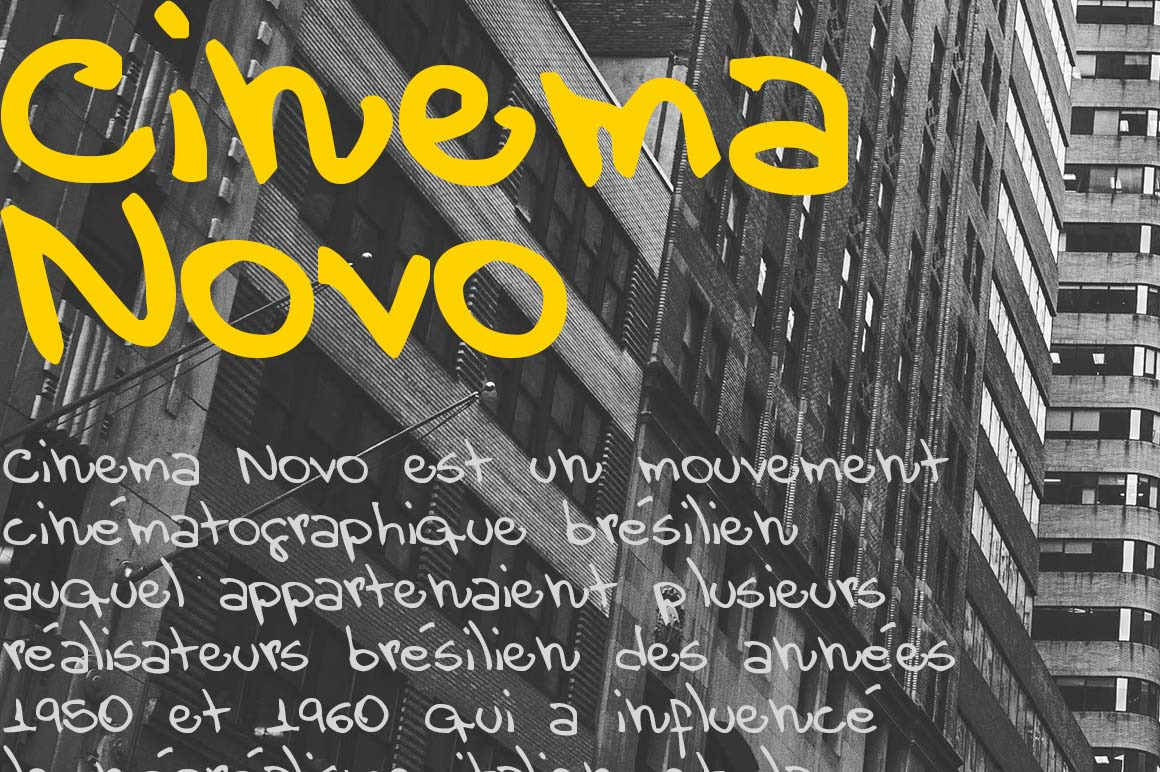
Cinema Novo Font
Cinema Novo is a handwritten font, both modern and retro. The name is derived from the brazilian sixties movie movement named cinema novo. This font is based in the handwriting of a real brazilian filmmaker. Included: